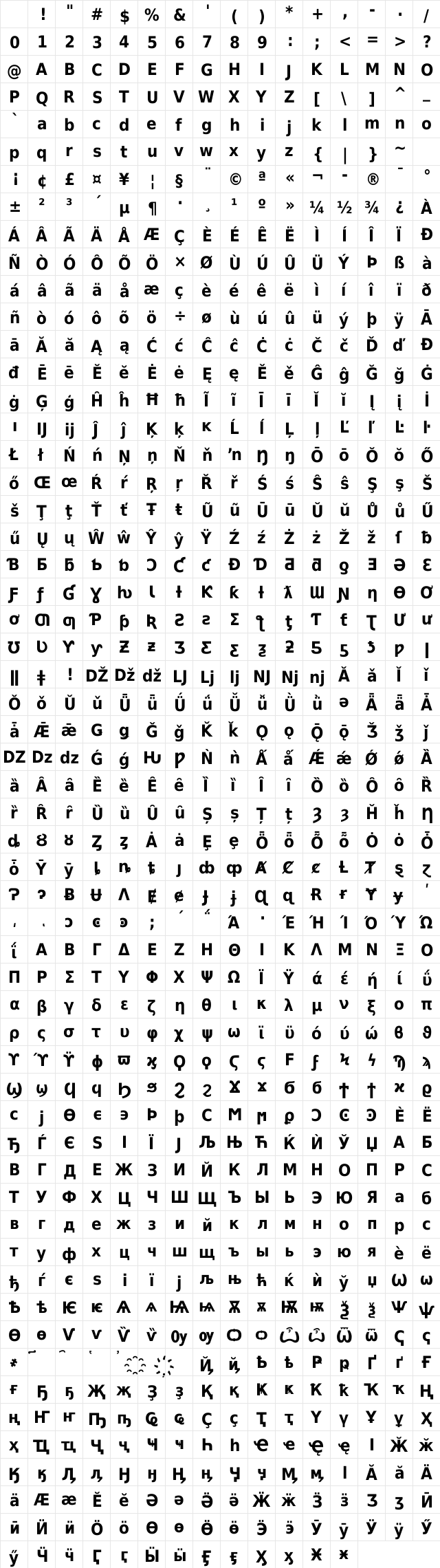
Complete DejaVu Sans Condensed Bold glyph index. Displaying only characters natively supported by DejaVu Sans Condensed Bold font.
DejaVu Sans Condensed is a composed and adaptable typeface that performs quietly and consistently across a wide range of design contexts. Its bold stroke weight gives it real presence on the page. Its narrow stance lets it pack a punch even in space-constrained designs.